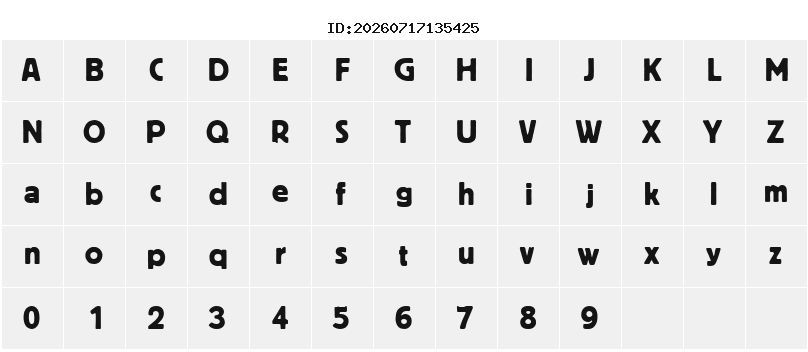
Blofeld Preview
• Font Name: Blofeld
• Font ID: SoftMaker Software GmbH Blofeld-Regular
• Full Font Name: Blofeld-Regular
• Version: Version 1.0 20-10-2002
• PostScript Name: Blofeld
• Character Count: 206
• Designer: SoftMaker Software GmbH
• Manufacturer: SoftMaker Software GmbH
About Blofeld.ttf
Blofeld.ttf is a modern, elegant sans-serif font designed for ultimate readability and visual harmony. Perfect for branding, headlines, web design, and print materials.